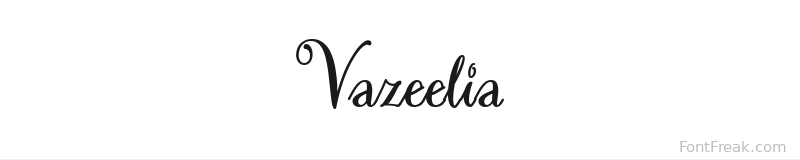
Vazeelia
Vazeelia is an elegant script font designed by Misti Hammers. This font falls into the script category, characterized by its fluid, cursive design that exudes a sense of sophistication and charm. The stroke weight varies gracefully, providing a beautiful contrast that enhances its visual appeal. The letters are well-spaced, allowing for easy readability while maintaining a decorative flair. Vazeelia features distinctive flourishes and swirls that lend a touch of artistry, making it perfect for a variety of creative projects.
The best use cases for Vazeelia include wedding invitations, where its romantic design can add a personal touch to the big day. It also shines in greeting cards, capturing the warmth and sentimentality often needed for such occasions. Restaurant menus can benefit from Vazeelia’s classy appearance, enticing diners with an upscale vibe. Additionally, this font is ideal for branding materials, giving small business owners a unique edge in their marketing efforts. Content creators looking to elevate their projects will find Vazeelia to be a versatile tool that brings elegance to their designs.
Targeting graphic designers, small business owners, and content creators, Vazeelia offers an appealing option for those seeking a sophisticated yet approachable typeface. Its freeware license means that it is easily accessible for anyone looking to enhance their visual projects without the constraints of a paid license.
What truly sets the Vazeelia font apart is its ability to blend artistry with practicality. The balance of stylistic elements and readability makes it a standout choice for anyone in need of a font that speaks to both creativity and functionality. For those interested, the Vazeelia font free download is available, inviting users to experience its charm firsthand.